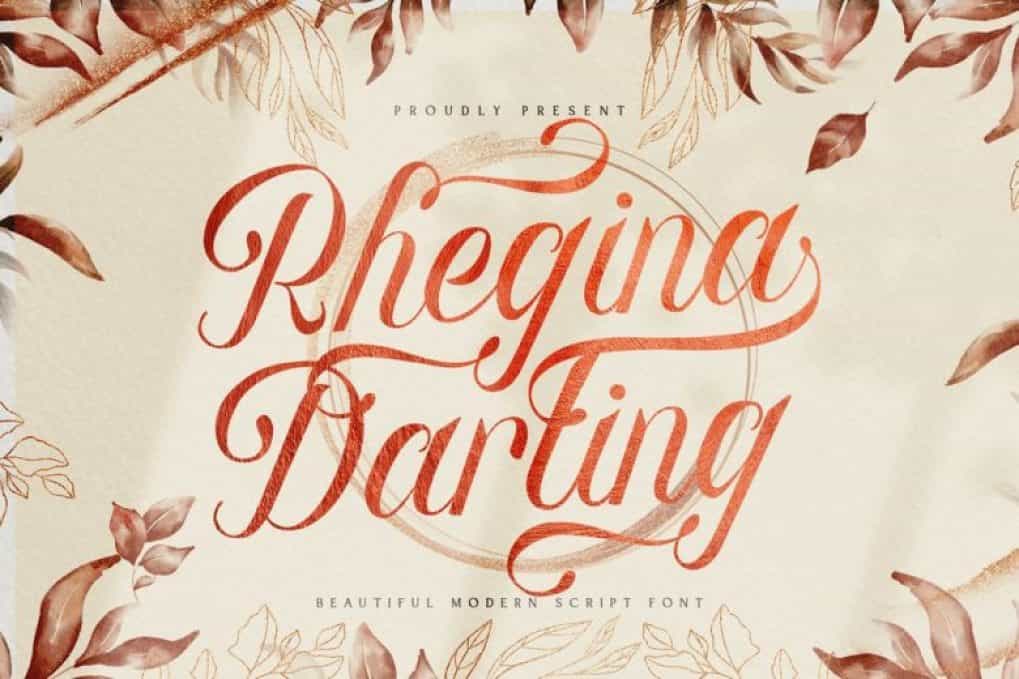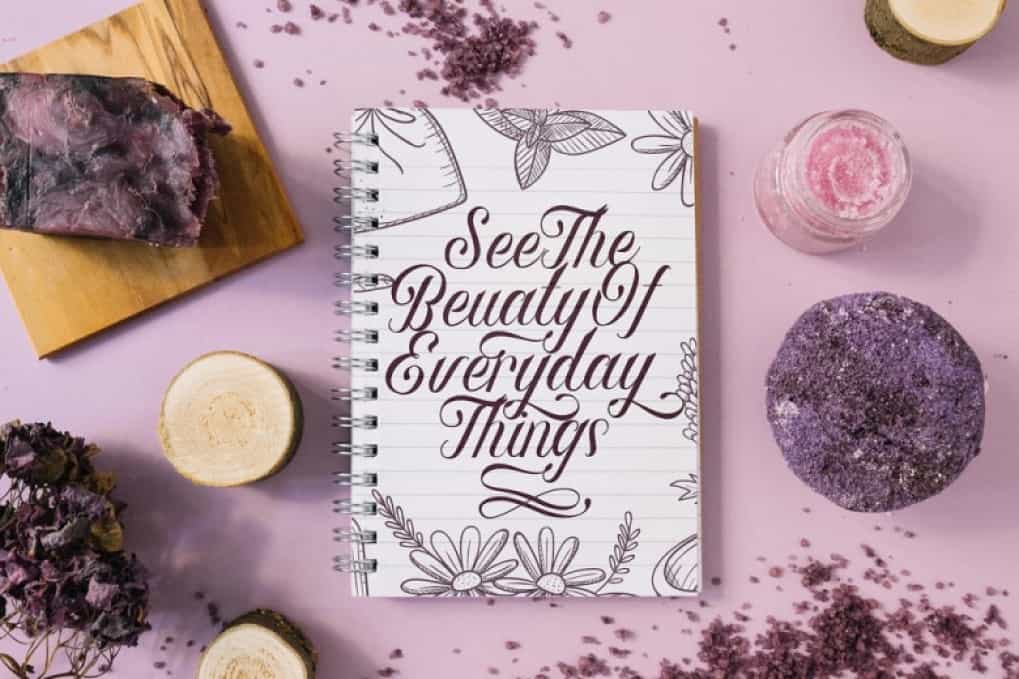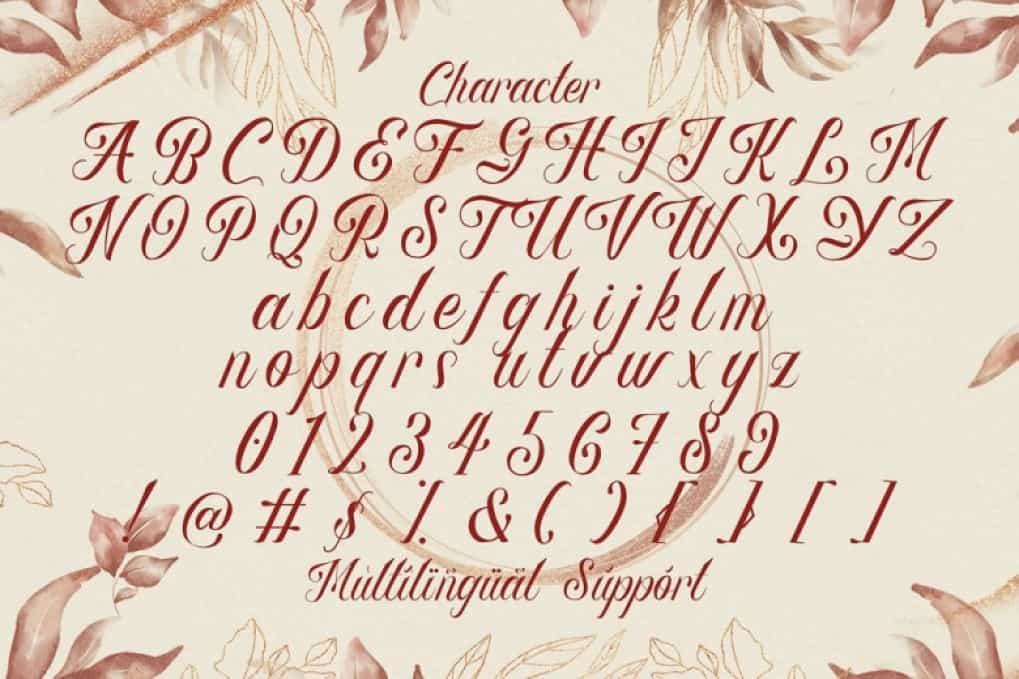
Rhegina Darling is an exquisite and graceful calligraphy font created with a style that will smoothly suit any project. Before you bring it out and use it, fall in love with this font’s unique yet classic look and style!